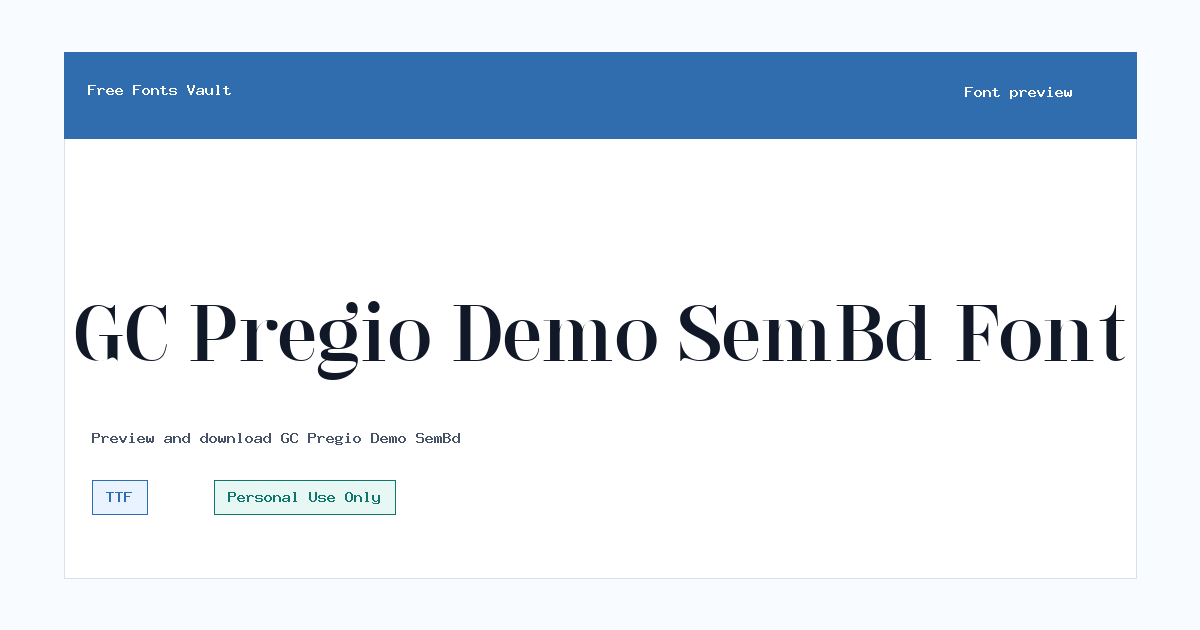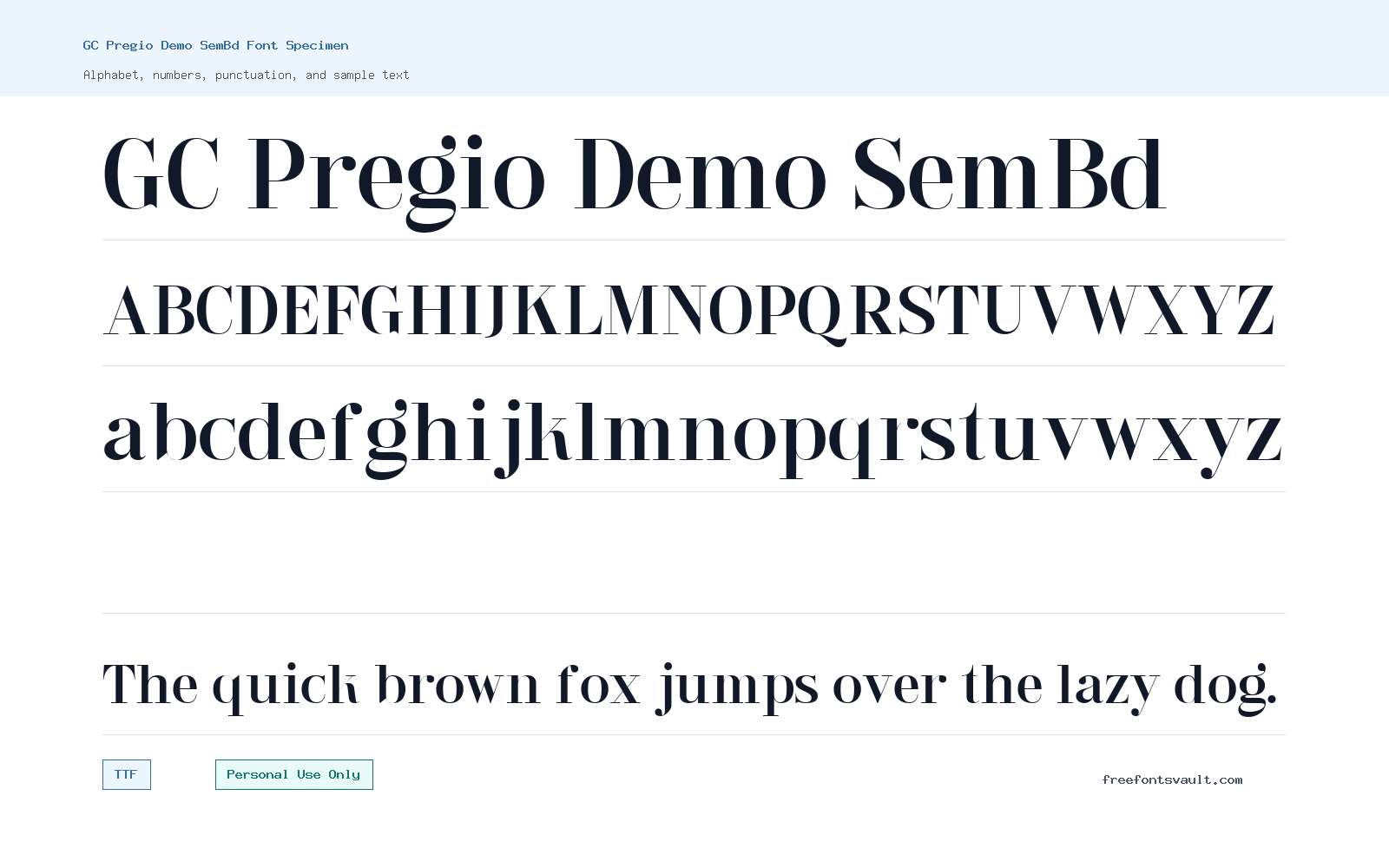
GC Pregio Demo SemBd
- Designer Dwi Indah Fadhilatul Amanah of Glyphonic.
GC Pregio Demo SemBd font.
GC Pregio Demo SemBd is a SemiBold demo font from Glyphonic with a Personal Use Only license. It is best approached as a display-friendly serif option for testing titles, logo ideas, posters, and visual layouts before any commercial use is considered.
About GC Pregio Demo SemBd Font
GC Pregio Demo SemBd is the SemiBold weight of the GC Pregio Demo family, delivered as a TTF font file. The name and license text identify it as a serif font, so visitors should expect a more structured, print-minded feel than a simple sans serif. Because this is a demo font, the safest way to evaluate it is to type your own words in the previewer and check the exact letters you plan to use. Pay close attention to capitals, punctuation, spacing, and repeated letters, especially if you are testing it for a logo, a packaging concept, a headline, or a poster title.
The SemiBold weight gives the font enough presence for short display text without needing a very heavy style. That makes it useful for mockups where you want a refined title, a strong section heading, or a brand-style wordmark test. It may be less suitable for long paragraphs, small mobile text, or dense body copy unless your preview shows that the spacing and readability still work at the size you need. Try it with one-line headings, two-word logo concepts, social graphics, invitations, editorial-style banners, and web hero mockups. For a cleaner layout, pair it with a quiet sans serif for body text so the serif shapes can do the visual work without making the whole design feel crowded.
- SemiBold 700 weight suited to titles, short headings, and display text
- Serif demo font identity, useful for testing more formal or editorial-style layouts
- Logo drafts and wordmark experiments
- Editorial-style headlines
- Packaging and label mockups
- Website hero text and landing page concepts
- Invitation, quote, and social media designs
- Personal design studies and typography practice
GC Pregio Demo SemBd is credited to Dwi Indah Fadhilatul Amanah of Glyphonic, with Glyphonic listed as the foundry.
What kind of font is GC Pregio Demo SemBd?
The license text identifies it as a serif font, and this file is the SemiBold 700 style. It is best tested for display uses such as headlines, logo drafts, posters, and mockups.
Is this font good for body text?
It may work for short text, but it is better to test it carefully before using it for paragraphs. The SemiBold weight is usually more comfortable for headings, labels, and display typography than for long reading.
What should I pair with GC Pregio Demo SemBd?
For most layouts, pair it with a simple sans serif for body copy and small labels. This keeps the headline clear while giving the page or poster a cleaner reading structure.